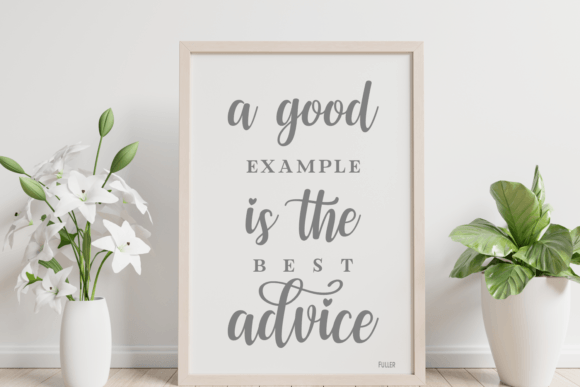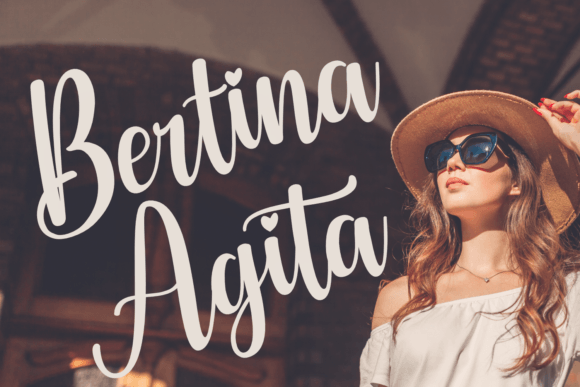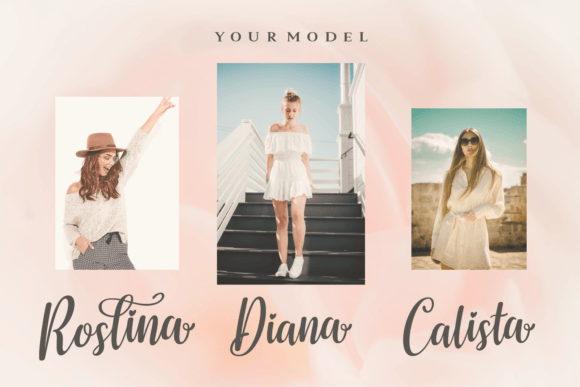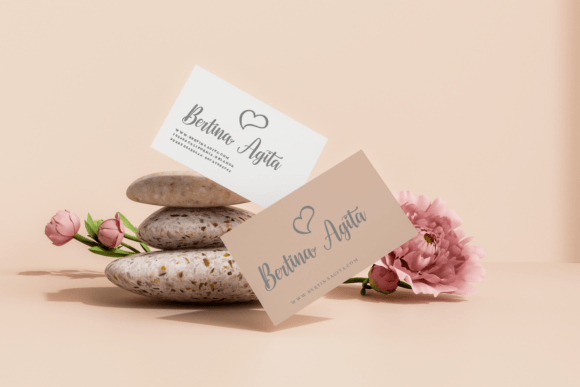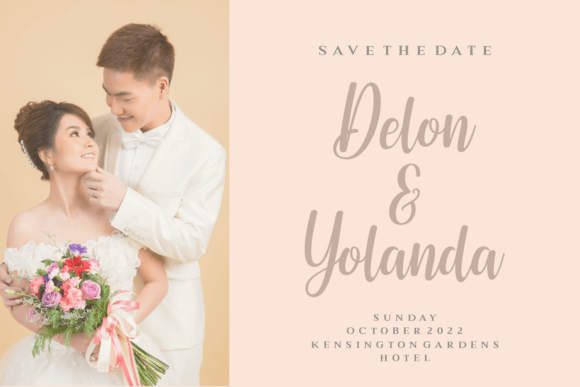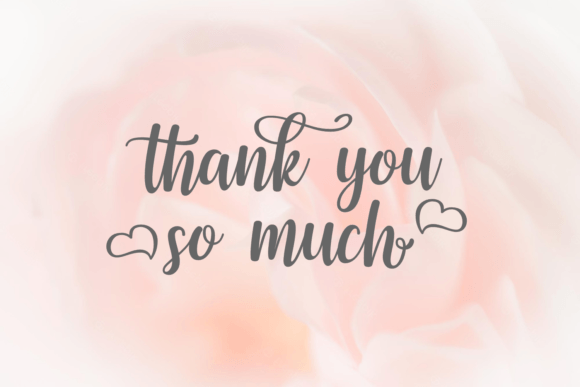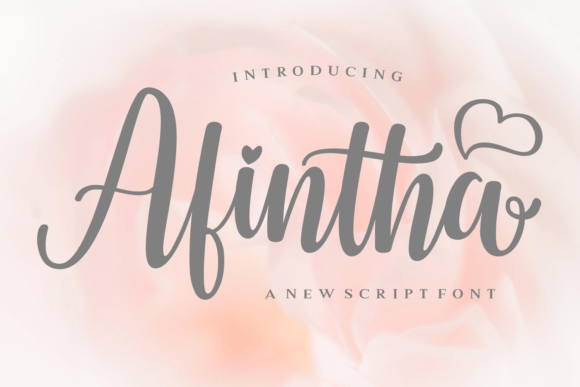
Afintha Font: Elevate Your Designs with Elegance and Charm
Are you looking for a font that can add a touch of romance and sophistication to your designs? Look no further than Afintha Font, an elegant and cute typeface that is perfect for a wide range of creative projects. In this article, we’ll explore the features and benefits of Afintha Font, and show you how it can help take your designs to the next level.
The Beauty of Afintha Font
Afintha Font is a stunning typeface that is designed to bring a beautiful, romantic touch to your designs. With its elegant lines and charming character, this font is perfect for creating invitations, cards, logos, quotes, crafting projects, posters, and many more. Whether you’re a designer, crafter, or DIY enthusiast, Afintha Font is a versatile and stylish choice that can help you create something truly special.
Key Features of Afintha Font
- Elegant and Cute Design: Afintha Font features a unique and charming design that is sure to capture the attention of your audience.
- PUA Encoded: This font is PUA encoded, making it easy to access all the glyphs and swashes you need to create stunning designs.
- Versatile and Multi-Purpose: Afintha Font can be used for a wide range of projects, from invitations and cards to logos, quotes, and posters.
- Easy to Use: With its user-friendly design and PUA encoding, Afintha Font is easy to use, even for those with limited design experience.
How to Use Afintha Font in Your Designs
Afintha Font is a versatile typeface that can be used in a variety of creative projects. Here are a few ideas to get you started:
- Invitations and Cards: Use Afintha Font to create beautiful invitations and cards for special occasions, such as weddings, birthdays, and holidays.
- Logos and Branding: Afintha Font is a great choice for logos and branding, adding a touch of elegance and sophistication to your business’s identity.
- Quotes and Posters: Use Afintha Font to create inspiring quotes and posters that are sure to capture the attention of your audience.
- Crafting Projects: Afintha Font is perfect for crafting projects, such as scrapbooking, journaling, and paper crafting.
Tips and Tricks for Getting the Most Out of Afintha Font
Here are a few tips and tricks to help you get the most out of Afintha Font:
- Experiment with Different Sizes and Colors: Try out different sizes and colors to see what works best for your design.
- Use Swashes and Glyphs: Take advantage of Afintha Font’s PUA encoding to access a wide range of swashes and glyphs.
- Combine with Other Fonts: Try pairing Afintha Font with other fonts to create a unique and interesting design.
Afintha Font is a beautiful and versatile typeface that is perfect for designers, crafters, and DIY enthusiasts. With its elegant design, PUA encoding, and multi-purpose uses, this font is sure to become a go-to choice for anyone looking to add a touch of romance and sophistication to their designs. So why wait? Download Afintha Font today and start creating stunning designs that will capture the attention of your audience!
- What is Afintha Font?: Afintha Font is an elegant and cute typeface designed to add a beautiful, romantic touch to your designs.
- Is Afintha Font PUA encoded?: Yes, Afintha Font is PUA encoded, making it easy to access all the glyphs and swashes.
- What can I use Afintha Font for?: Afintha Font can be used for a wide range of projects, including invitations, cards, logos, quotes, crafting projects, posters, and more.